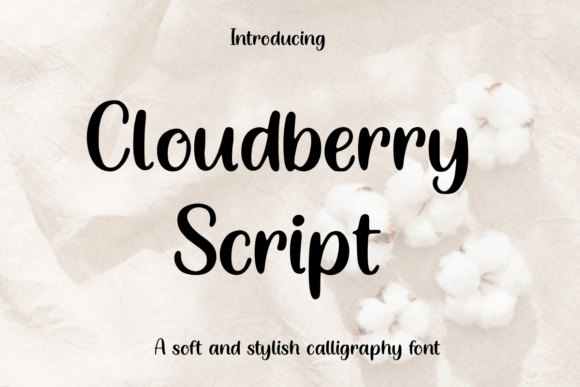
Discover Your Perfect Match: The Cloudberry Script Font
There’s something magical about holding a pen to paper and watching your handwritten words come to life. The gentle scratch of the pen, the flow of the ink, and the unique imperfections that make each letter truly special. As a designer, you’ve likely experienced this moment, and you know how it can spark a whole new level of creativity.
That’s why we’re excited to introduce you to the Cloudberry Script Font, a soft, modern calligraphy font that captures the essence of handwritten elegance. With its bouncy strokes, warm organic feel, and beautiful swashes, this font is perfect for adding a touch of femininity to your branding, packaging, quotes, and wedding designs.
Cloudberry Script Font Key Features
- Font Style: A beautiful, elegant script font with a whimsical feel, perfect for adding a touch of sophistication to any design.
- Unique Characteristics: The Cloudberry Script Font features a unique, flowing design with subtle flair and elegance, making it perfect for adding a touch of sophistication to any design.
Cloudberry Script Font Review
I’ve had the chance to work with Cloudberry Script Font, and here’s my honest take on it. Overall, I think it’s a beautiful font that can elevate any design project.
- Cursive feel without being too over-the-top: Cloudberry Script has a lovely balance between elegance and subtlety, making it perfect for projects where you want to add a touch of sophistication without overpowering the content.
- Unique flair: This font has a distinct character that sets it apart from other script fonts. It’s not a generic, run-of-the-mill script font – it’s got its own personality.
- Legibility: Despite its cursive nature, Cloudberry Script is surprisingly easy to read, even at smaller font sizes.
- Limited use cases: While Cloudberry Script is perfect for certain projects, it might not be the best choice for projects that require a more formal or professional tone.
- Not ideal for small text: While the font is legible, it can get a bit messy when used in small text sizes. It’s best to use it in larger font sizes or as an accent font.
Overall, I think Cloudberry Script Font is a great addition to any designer’s toolkit. With its unique flair and balance of elegance and subtlety, it’s sure to elevate any design project. Just be mindful of its limitations, and you’ll be golden!
Getting the Most Out of Cloudberry Script Font
For a more elegant look, pair Cloudberry Script Font with a clean sans-serif font for body text.
For a more polished look, use Cloudberry Script Font for headings and a clean sans-serif font for body text.
For a more elegant look, pair Cloudberry Script Font with a clean sans-serif font for body text.